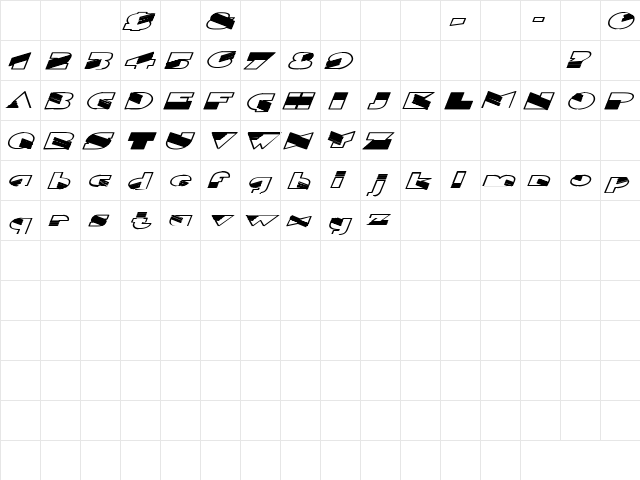
Wither Outline 4 Bold Italic
Design Context for Wither Outline 4 Typeface
Wither Outline 4 brings ornamental detail and strong personality to headlines and identities, where visual impact matters more than quiet functionality. The slanted form adds forward momentum and visual energy. Its bold stroke weight gives it real presence on the page.
Font Pairing: Pair with a clean neutral sans-serif for body copy to let Wither Outline 4's character lead without overwhelming the composition.
Pro Tip: Use Wither Outline 4 exclusively at display sizes — it was designed to be seen, not read at length. Let a neutral companion handle body copy.